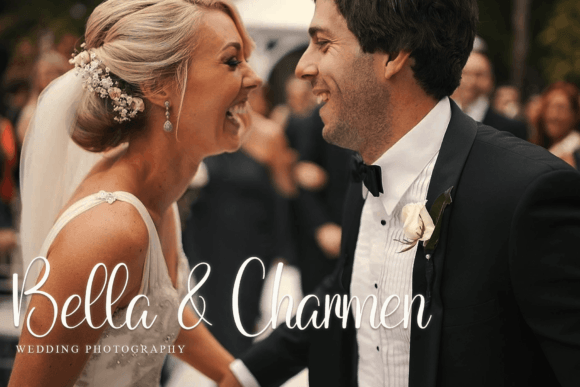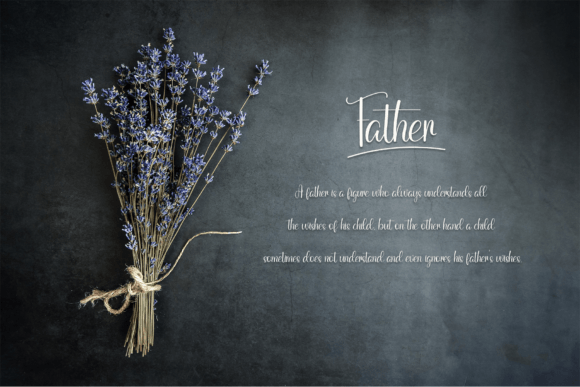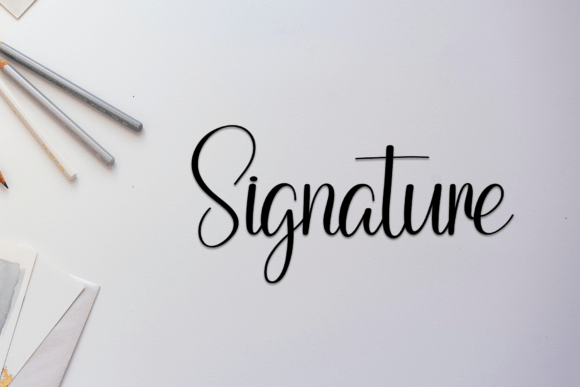
About Father Font
“Father” is a unique, round-lettered handwritten font that has been carefully crafted to make a notable impact. This font offers a distinctive and stylish look that is well-suited for a variety of applications, including writing titles, invitations, letters, and more.
The round-lettered style of “Father” adds a touch of uniqueness and character to your designs. Whether you’re creating titles for creative projects or designing invitations for special occasions, this font brings a distinct and eye-catching quality to your text.
Imagine using “Father” to make an impact in your designs, especially when you want to convey a sense of individuality and style. It can be applied to various products, adding a visually appealing and cohesive look to your text.
As you incorporate “Father” into your designs, you’ll appreciate the carefully crafted round letters that contribute to its overall appeal. The font’s versatility allows it to adapt seamlessly to different types of products, making it a valuable asset for a range of creative endeavors.
Whether you’re working on digital graphics, print materials, or any other design project, “Father” invites you to explore its unique and round-lettered style. It becomes a distinctive element in your designs, ensuring that your titles and text stand out with a touch of character and impact.